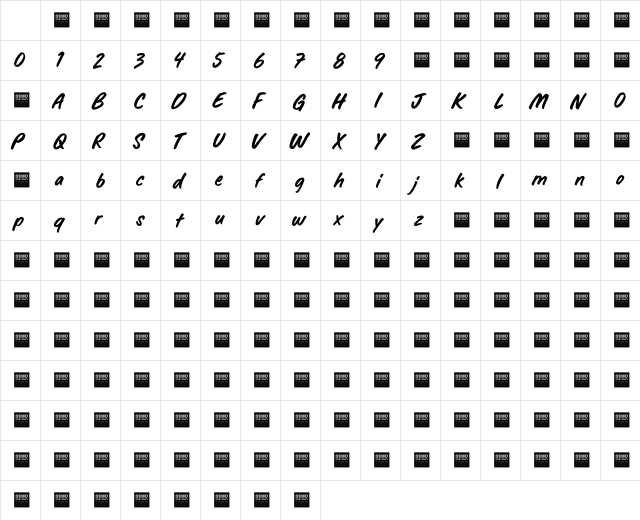
Complete Paradise Found - Demo Regular glyph index. Displaying only characters natively supported by Paradise Found - Demo Regular font.
Paradise Found - Demo is a composed and adaptable typeface that performs quietly and consistently across a wide range of design contexts.